Latin Italic 06: “Inclination of Italic 2”
In the previous article of this series “Inclination of Italic 1,” how much the angle of italic is inclined in comparison between regular and italic is mentioned. In this article, I would like to cover each character angle in one italic typeface.
It is not true that all glyphs are geometrically inclined in the same angle in one italic typeface. There are roughly two reasons for changing the angle by glyph.
The first is visual adjustment to show that all glyphs are inclined in the same angle in appearance. There is a sensory illusion called optical illusion in human visual sense, and there are many conditions in which geometrically and uniformly drawn figures or lines look distorted in appearance. This optical illusion also has an influence at the time of arranging the angle of figures. In typeface in particular, the size and shape differ depending on the glyph, so the angle in appearance comes apart due to the influence of the features of figures that constitute each glyph even when inclined numerically at the same angle.
A designer makes detailed balance adjustment in accordance with each shape, such as tall glyphs, short glyphs, round ones, square ones, etc. In typeface with a lot of ornamental elements, such as serifs in Roman typeface, the size and location of these elements also have an influence on inclination degree. As the larger the inclination angle, the more conspicuous this dispersion. Therefore, care must be taken at the time of creating italic with large inclination, etc.
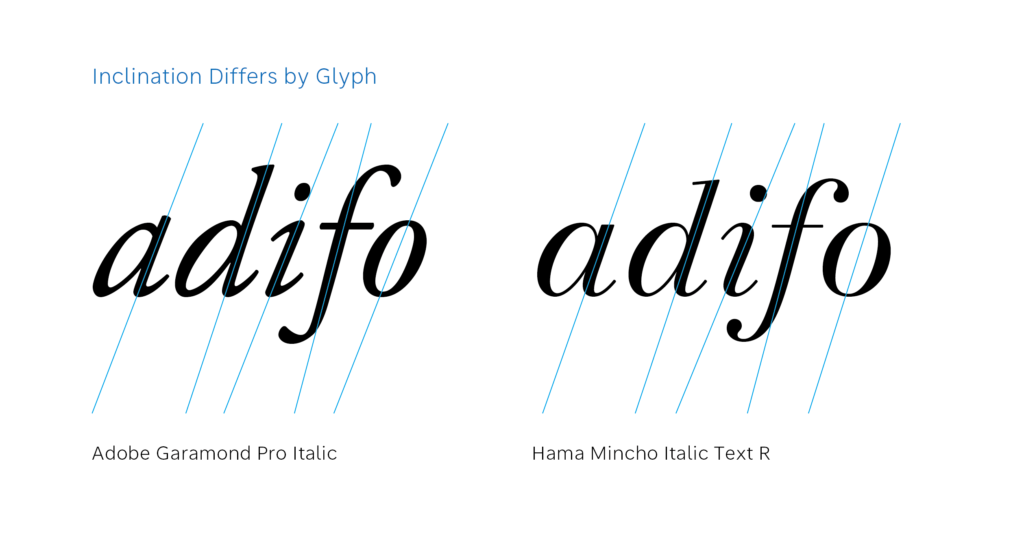
Apart from visual adjustment, there are typefaces in which the inclination angle is purposely changed by glyphs in appearance. Intention and method of changes vary depending on the designer, but making changes like this can give a rhythm in appearance at typesetting, and improve differentiation of each character. Even in metal type over several hundred years ago, there are many typefaces with uneven inclination in existence. Details of the intent are unknown. Some of them seem hard to read, but that can be seen as the individuality of that typeface and one of the design elements.
Both visual adjustment and angular variation as a design element are very detailed adjustment work. As overdoing leads to illegibility and uncomfortable feelings, a typeface designer adjusts the balance in a very delicate change in units of a few millimeters.